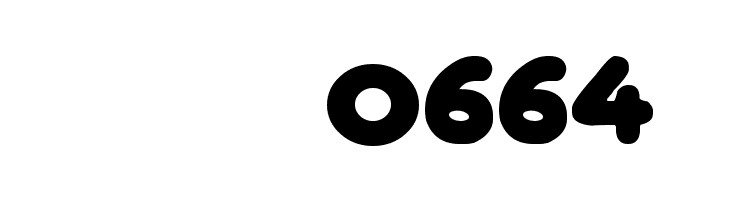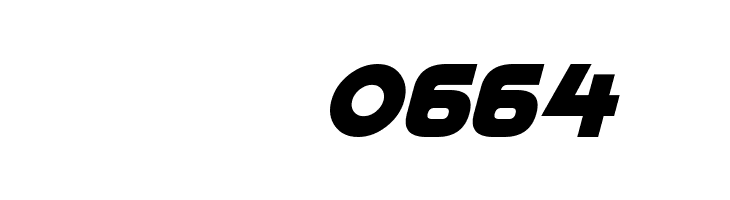
A modern, elegant script font with flowing, cursive characters.
A bold, cursive script font with a fluid, handwritten style.
A playful, bold font with rounded, bubbly characters.
A playful, handwritten font with uneven strokes and a casual, energetic style.
A bold, dynamic font with sweeping curves and sharp edges, perfect for impactful designs.
A dynamic and elegant script font with fluid, cursive strokes.
A dynamic cursive font with elegant, sweeping strokes and artistic flair.
A modern-retro font with elongated, flowing letterforms and playful loops.
A modern, decorative font with interconnected strokes and playful curves.
A bold, playful, and handwritten-style font with rounded edges.
A bold, hand-painted italic font with dynamic, brush-like strokes.
A calligraphic font with dynamic curves and artistic flair.
A bold, italic font with a dynamic, modern style and uniform stroke thickness.
A bold, brush-style font with dynamic, slanted strokes.
A bold, dynamic script font with flowing, interconnected strokes.
A playful, cat-themed font with whimsical elements and bold, friendly characters.
A bold, expressive script font with flowing, connected letterforms.
A bold, expressive script font with flowing cursive letterforms and elegant swashes.
A lively, cursive font with interconnected letters and medium contrast, perfect for elegant projects.
A modern sans-serif font with geometric shapes and uniform strokes.
A modern, oblique sans-serif font with a dynamic and sleek design.
A futuristic, geometric font with sharp angles and a mechanical aesthetic.
A futuristic, angular, and italicized font with a robotic feel.
A playful, hand-drawn font with a bold, quirky style and irregular baseline.
A playful and whimsical font with irregular, dynamic letterforms.
An elegant, decorative font with ornate uppercase and bold lowercase letters.
A playful and whimsical font with rounded, smooth letterforms.
A playful, hand-drawn font with a bold and whimsical style.
A bold, modern font with strong, thick strokes for high legibility.
A bold, italicized font with strong strokes and a dynamic slant.
A modern, thin-stroked font with a clean and elegant design.
A sleek, thin, italicized font with a modern and elegant style.